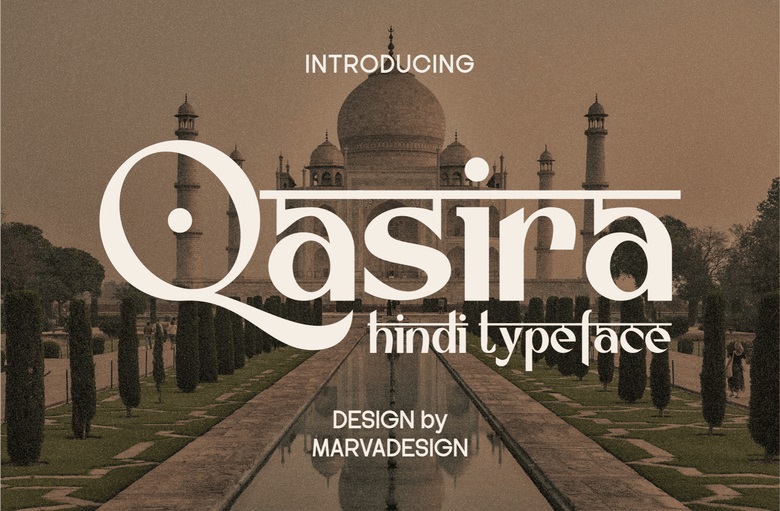
Qasira Font
Qasira Font combines traditional Hindi script with a modern look, so it is both easy to read and stylish. It works well when you want to give Hindi text a fresh feel in digital or print designs.
Qasira Sans Serif Font